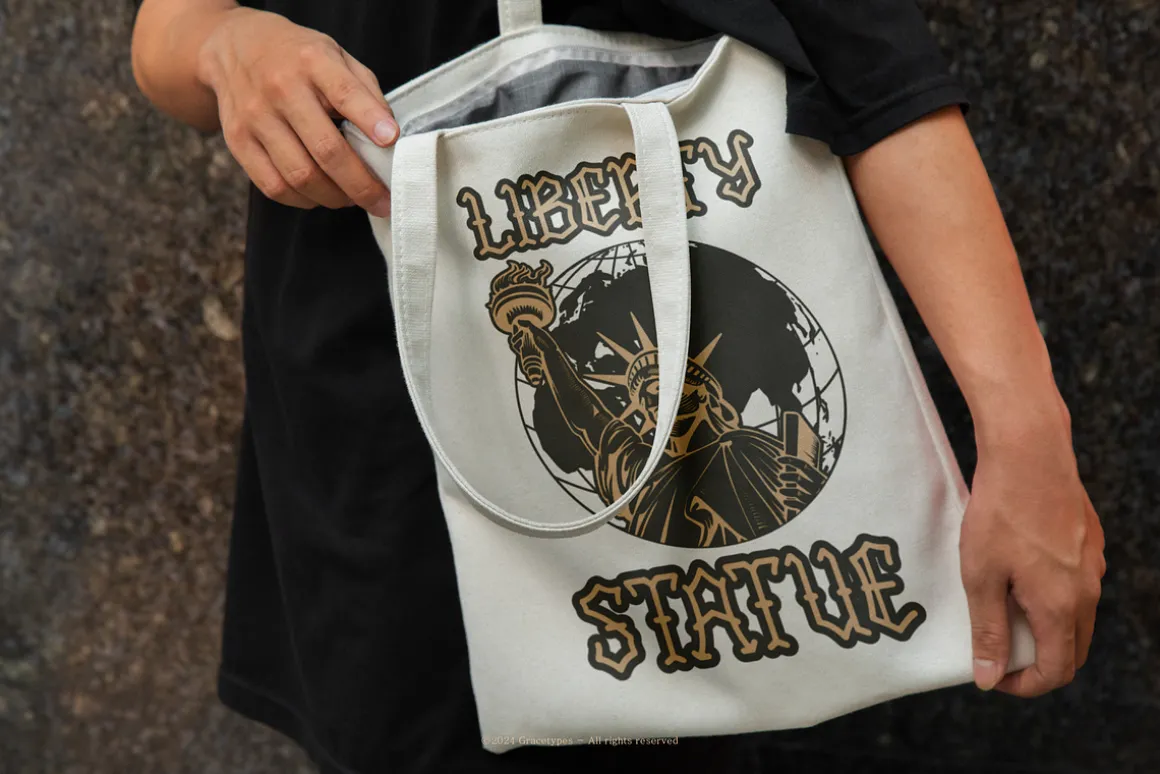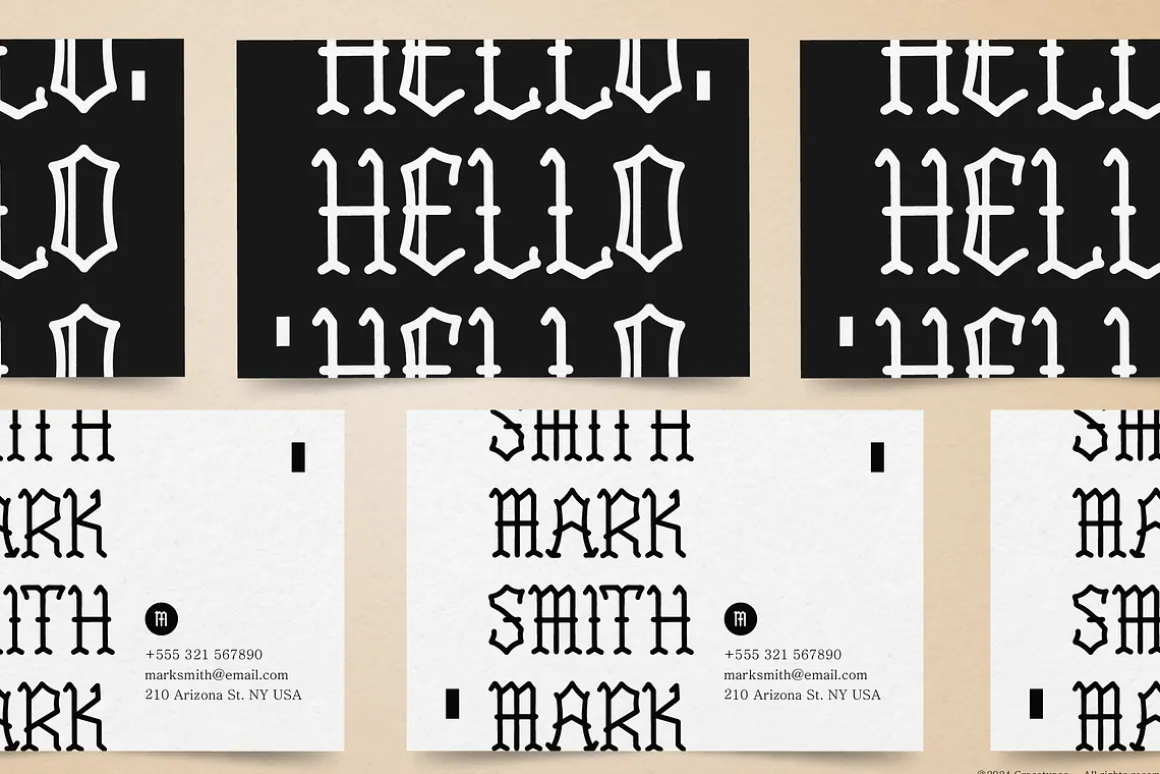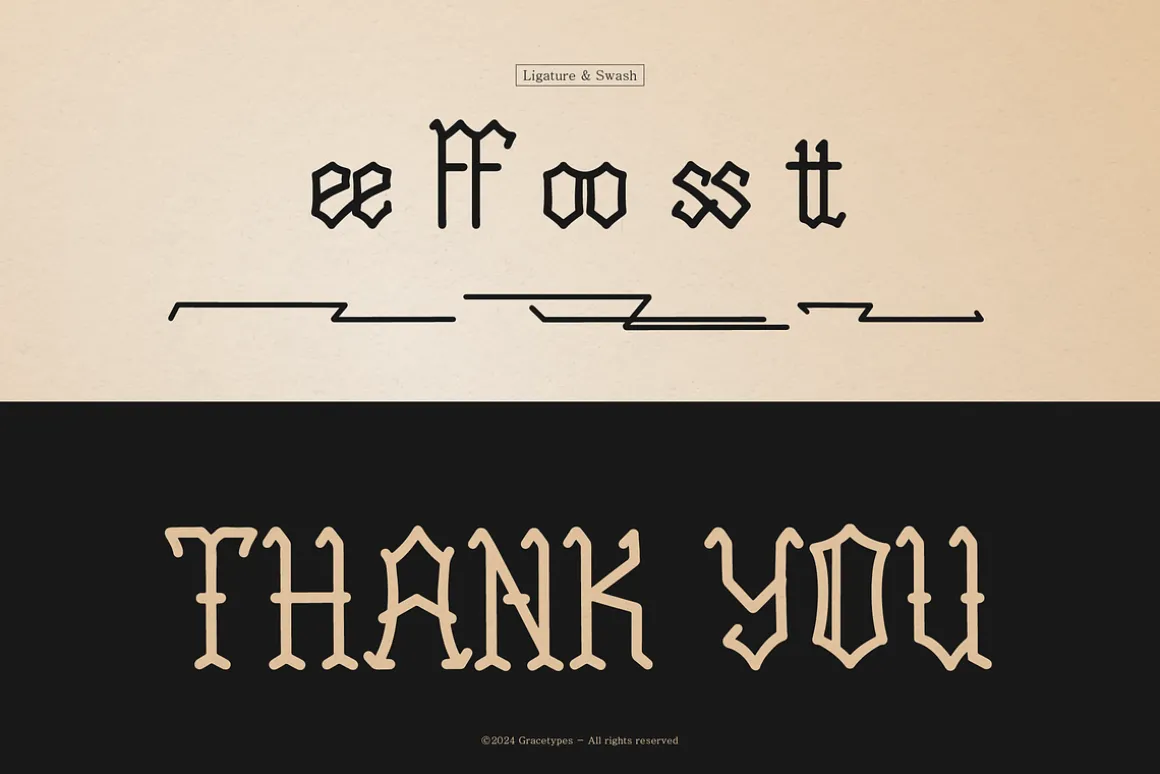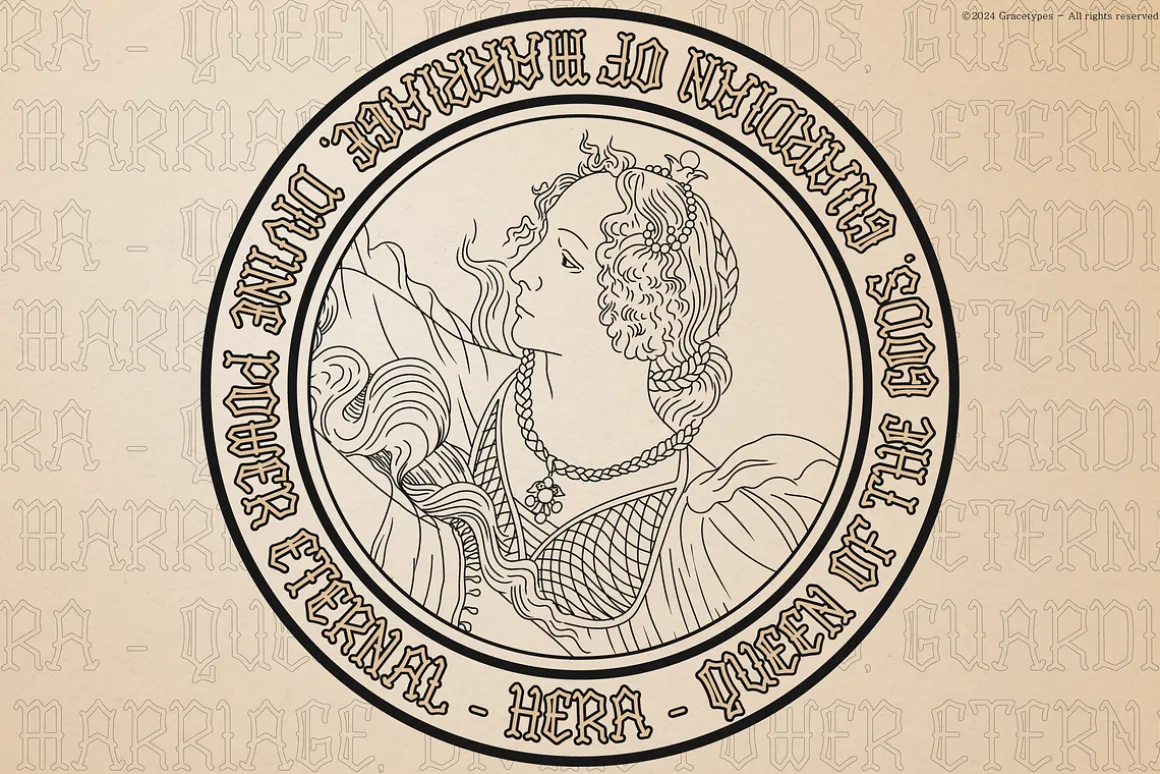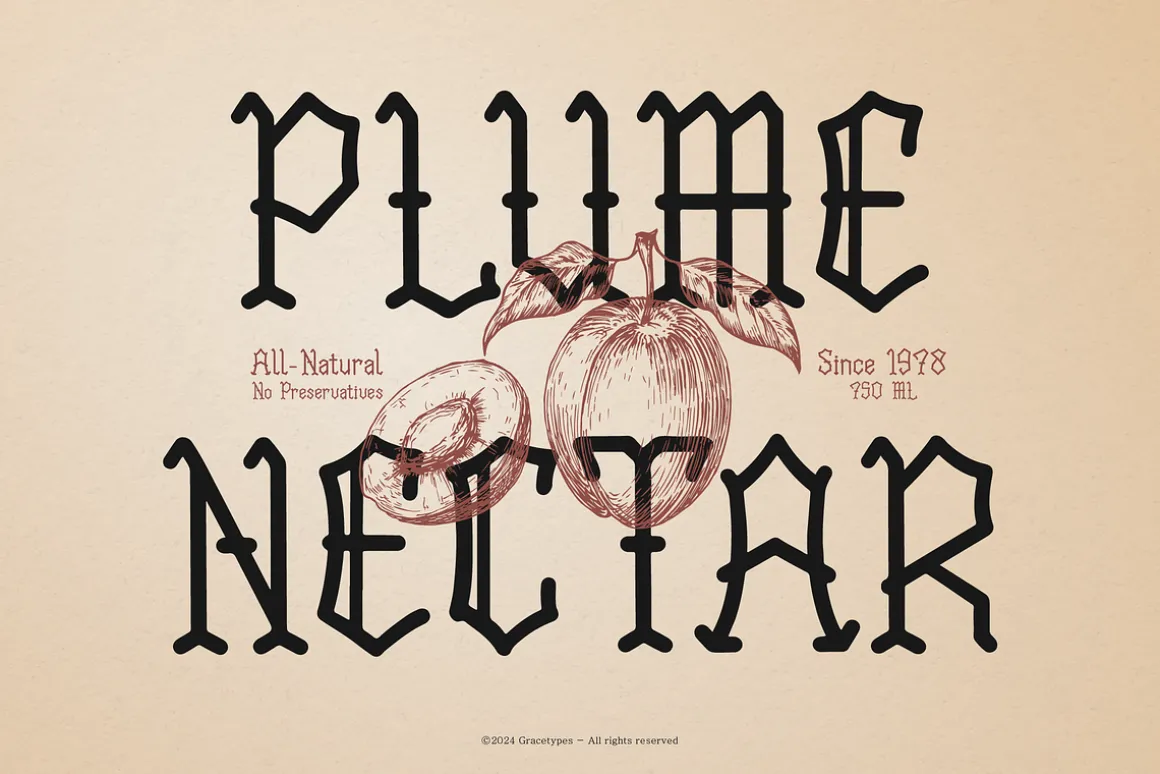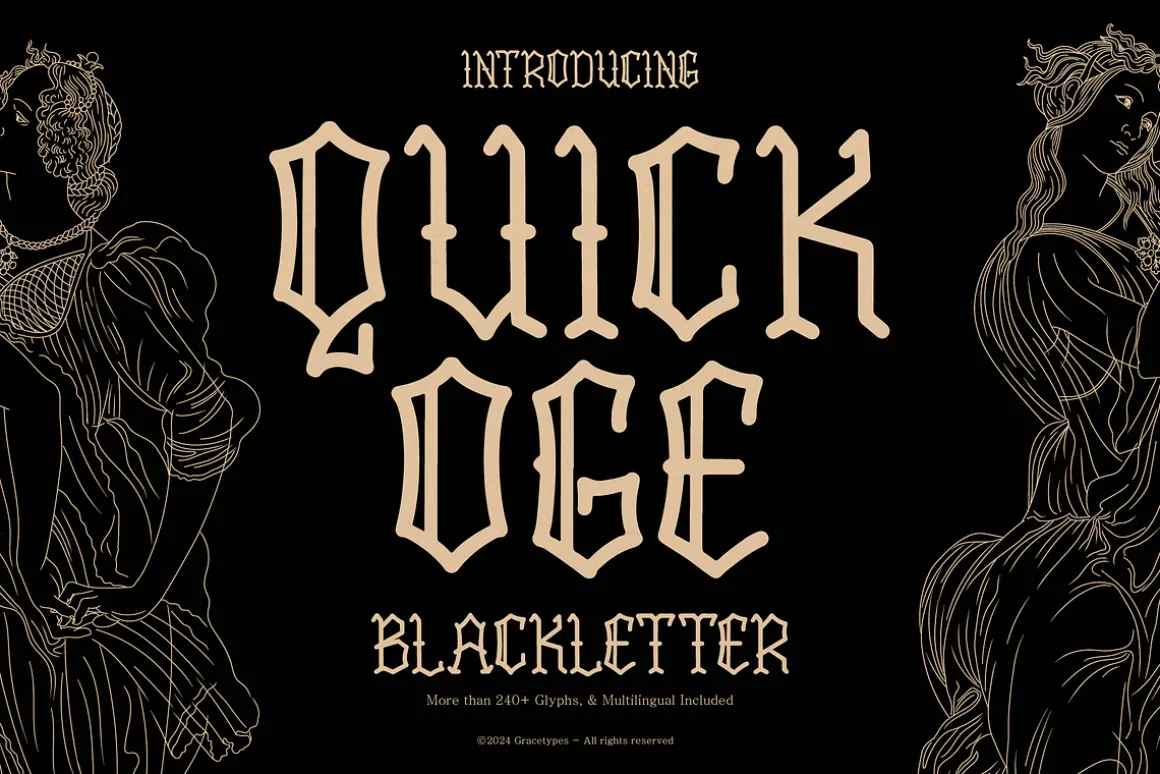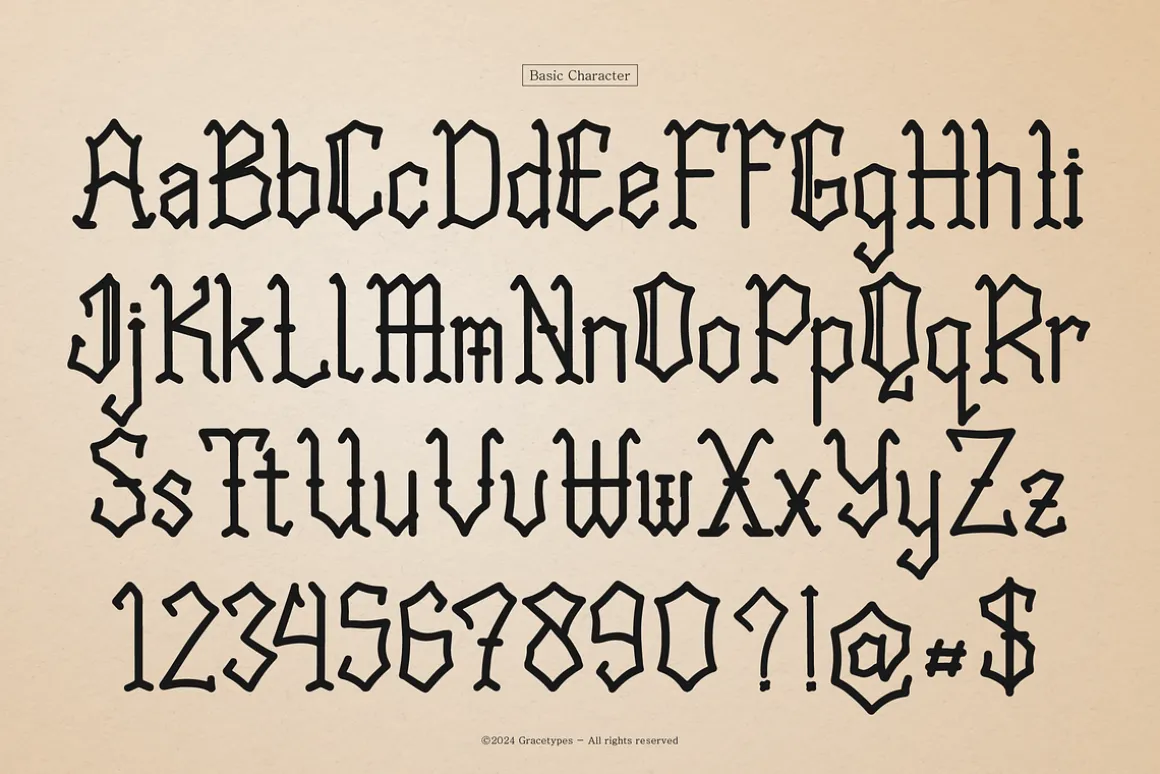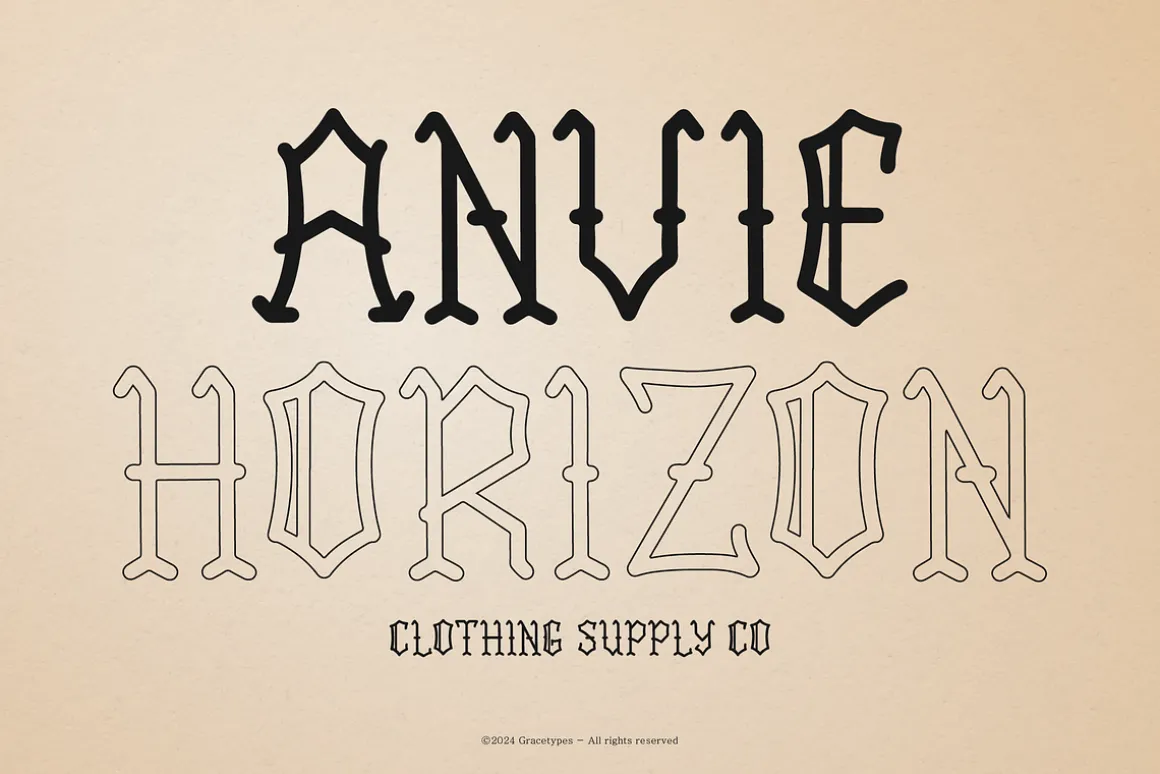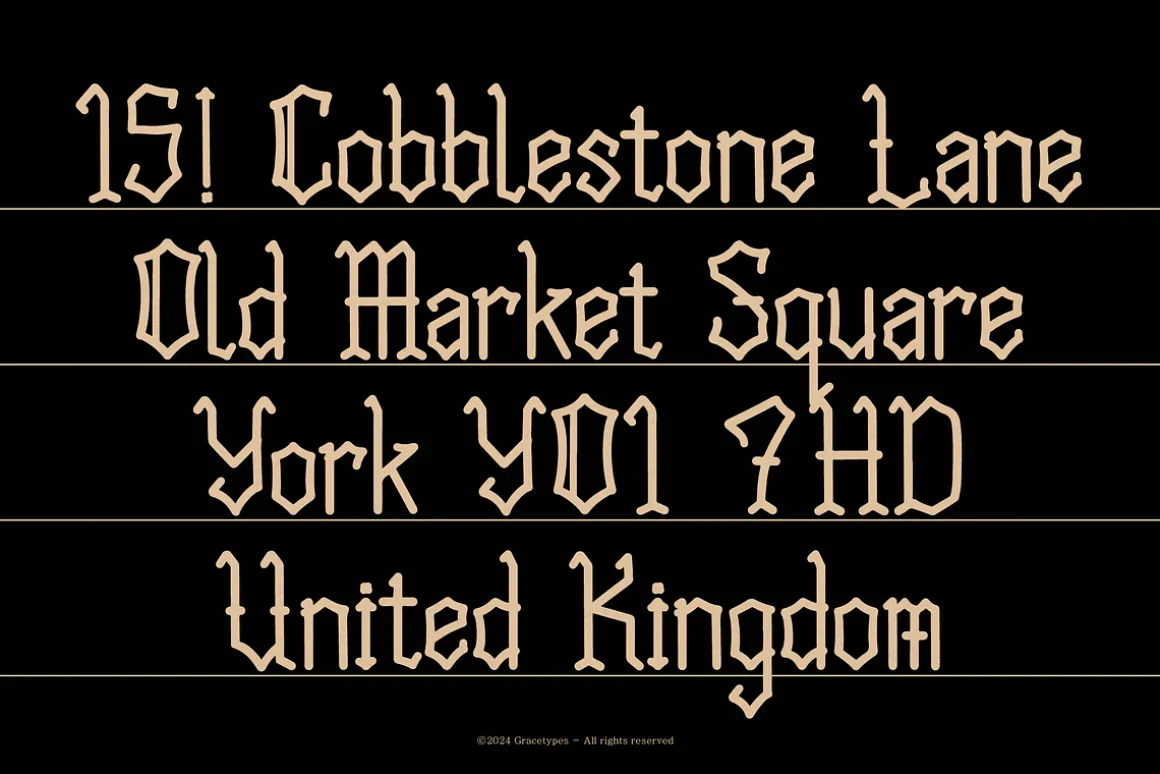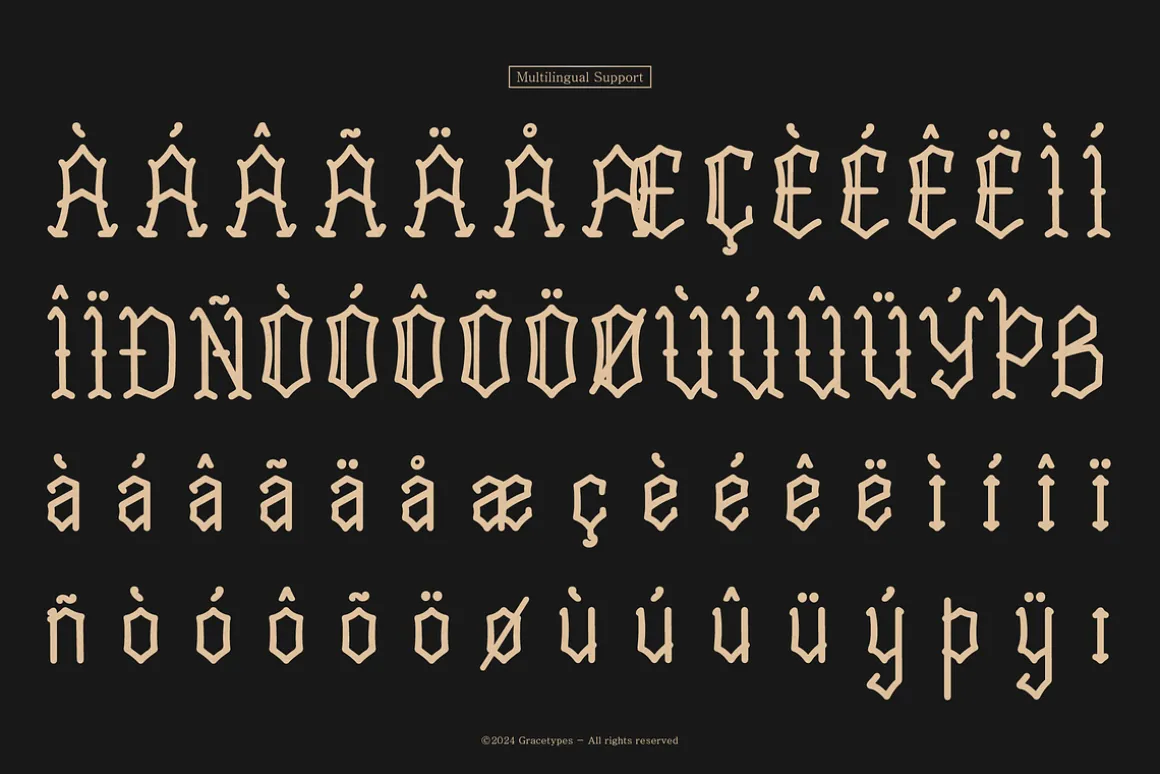
Quick Oge
Blackletter Typeface, from Gracetypestudio, suitable for any projects such as: logos, branding projects, homeware designs, product packaging, mugs, quotes, posters, shopping bags, t-shirts, book covers, name card, invitation cards, greeting cards, label, photography, watermark, special events, and all your other lovely projects that need a Blackletter Typeface taste.